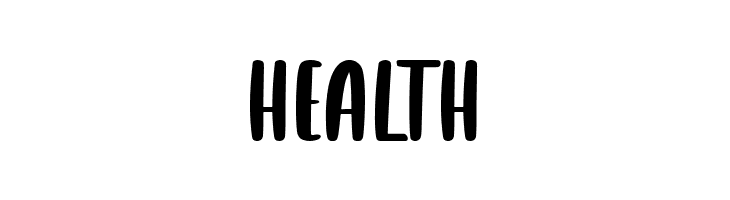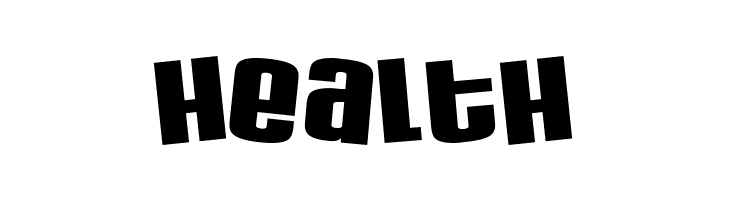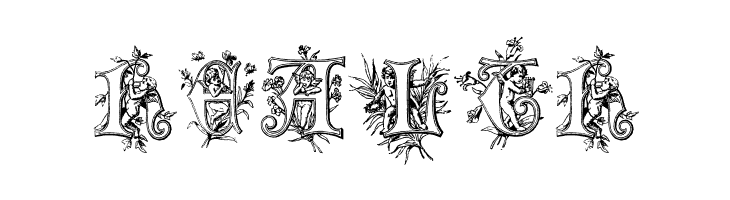
A bold, playful handwritten font with rounded edges and dynamic style.
A bold, playful font with a whimsical, retro aesthetic.
An elegant and whimsical font with flowing, interconnected letterforms.
A decorative, geometric font with parallel line patterns creating a bold, modern look.
A flowing, elegant handwritten font with a casual and sophisticated style.
A bold, playful font with wide, slightly condensed characters.
An ornate and decorative font with floral and vine motifs, ideal for historical themes.
A playful, bold, and hand-drawn style font with rounded strokes.
A playful, casual handwritten font with smooth, flowing strokes.